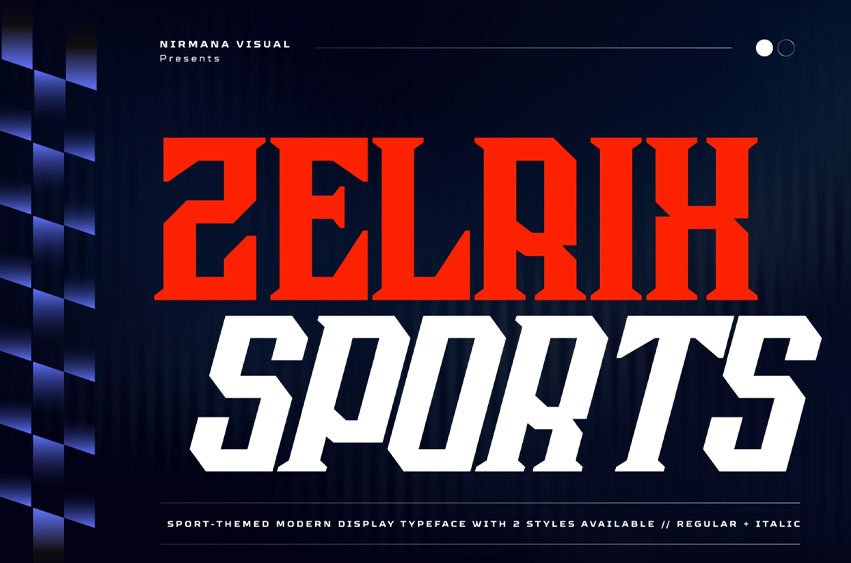
Zelrix Sports Font is a bold italic sports font built for speed, power, and futuristic energy.
Designed with sharp edges and dynamic curves, this typeface delivers a strong racing spirit perfect for motorsport branding, esports, technology projects, gaming posters, automotive logos.